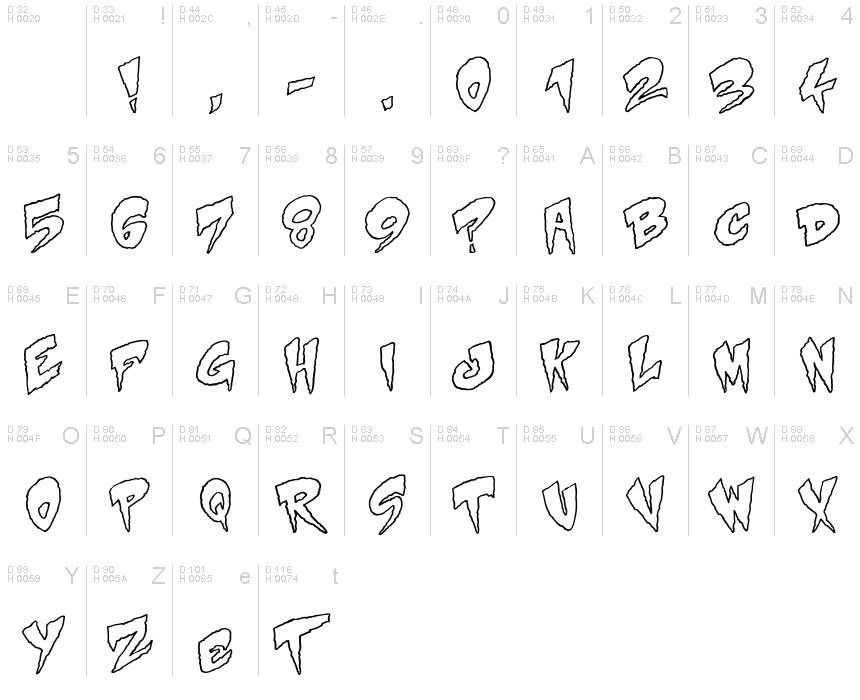
Mystery White
Mystery White is a bold, cartoonish display font that exudes a sense of mystery and whimsy. The outlined, dynamic lettering captures a playful, almost hand-drawn aesthetic, lending it a distinctive visual flair.
The font's robust weight and striking silhouette make it an eye-catching choice for headlines, logos, and other prominent design elements. Its versatility shines through, as Mystery White can seamlessly transition from children's book illustrations to edgy, contemporary branding, showcasing its ability to adapt to a wide range of creative applications.
Mystery White's unique character and captivating style make it a compelling addition to any designer's toolkit. Its captivating presence can elevate a wide variety of projects, from playful children's media to attention-grabbing advertising campaigns.